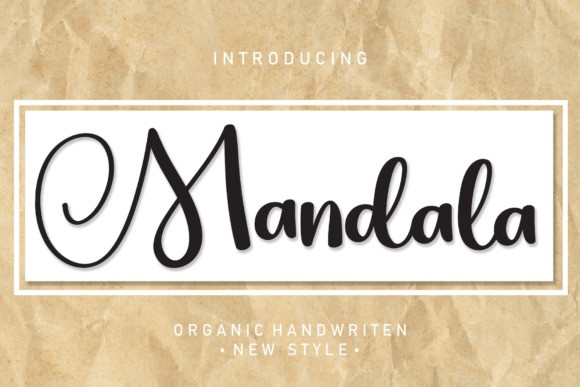
Mandala Script Typeface
Mandala Script Typeface, is an elegant and dainty handwritten font that features sweet and delicate swashes. Taking romantic to a whole new level is a font with hearts for dots—you can find them on characters like “i” and “j”.